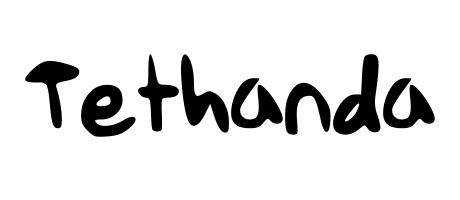
Tethanda
By Evan Tetreault
Tethanda is a whimsical handwritten font, brimming with a playful energy. Its letters are uneven, slightly rounded, and possess a childlike charm. The strokes are thick and bold, adding a touch of rustic boldness. It evokes a feeling of casual creativity and spontaneous expression. The overall style is informal and friendly.